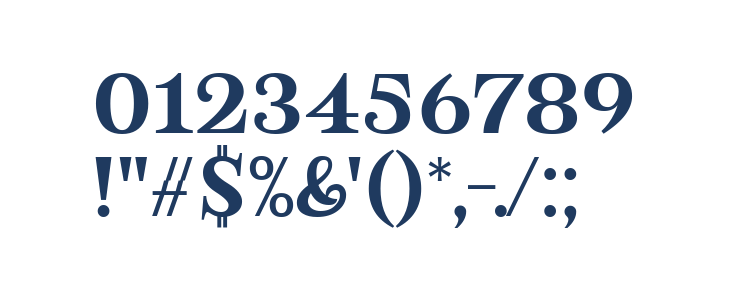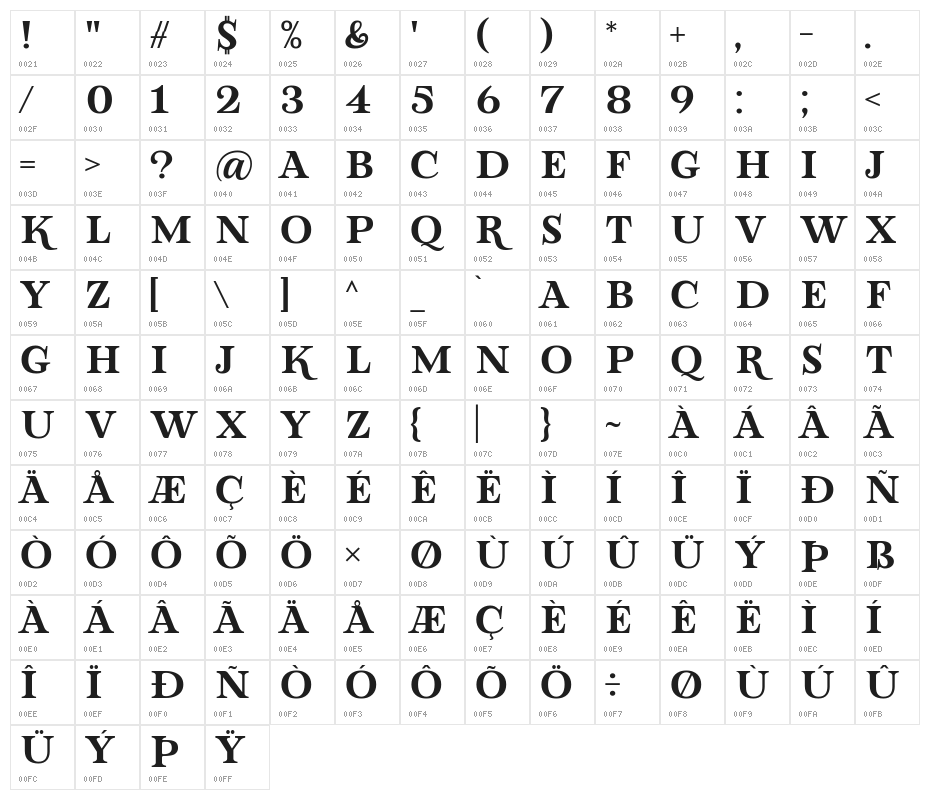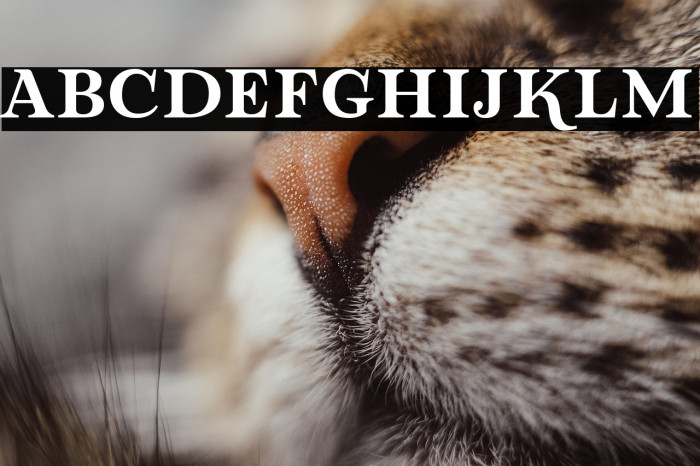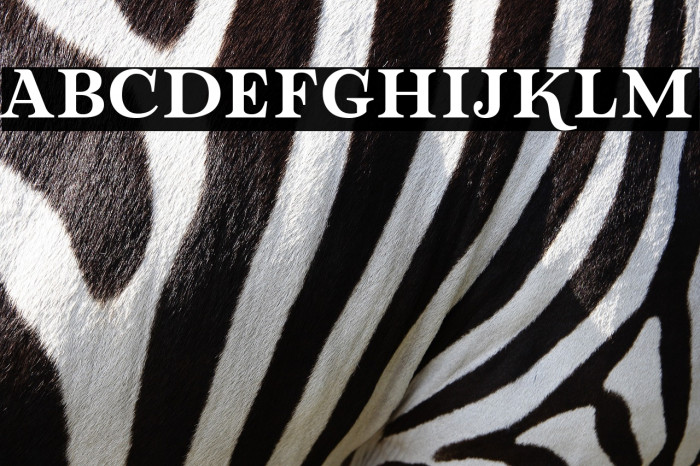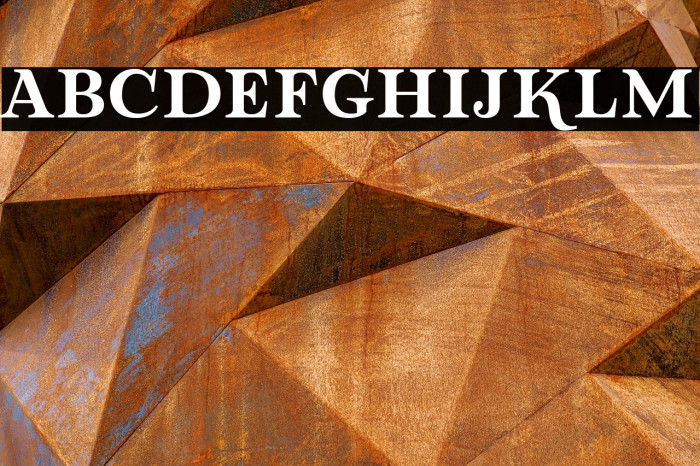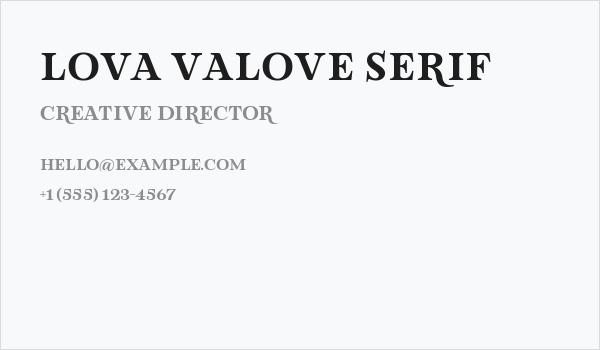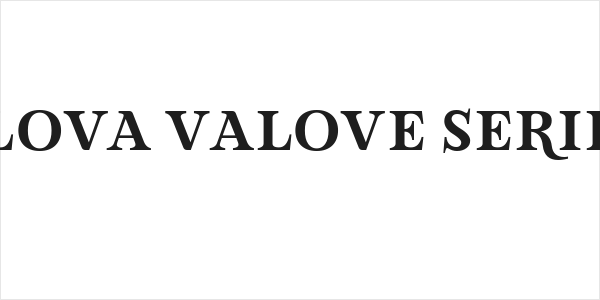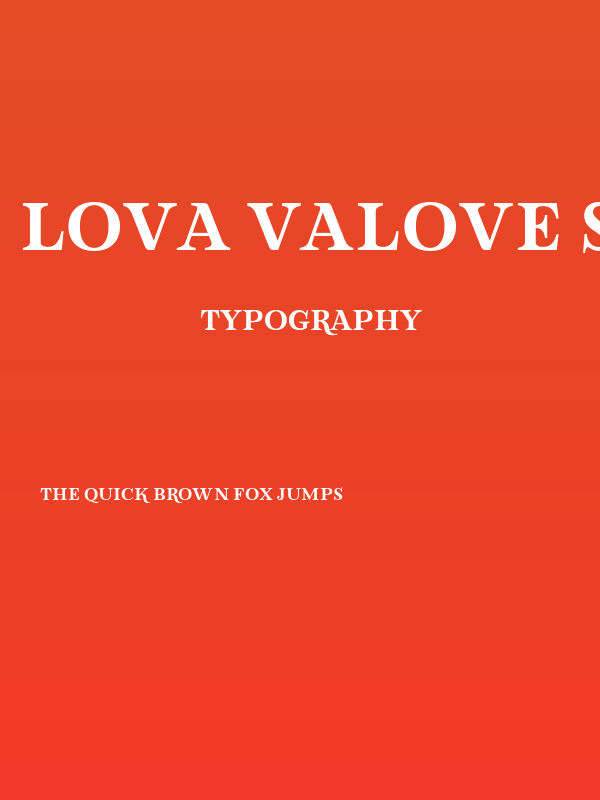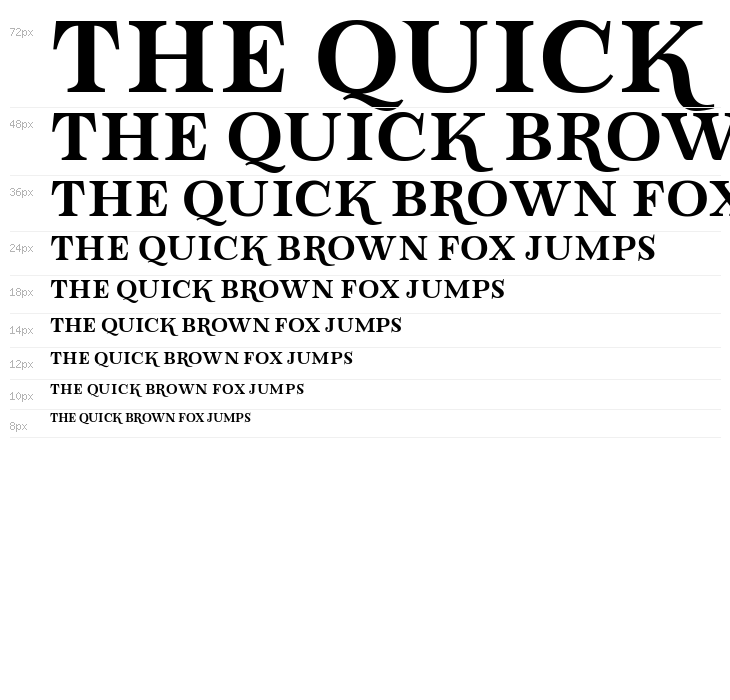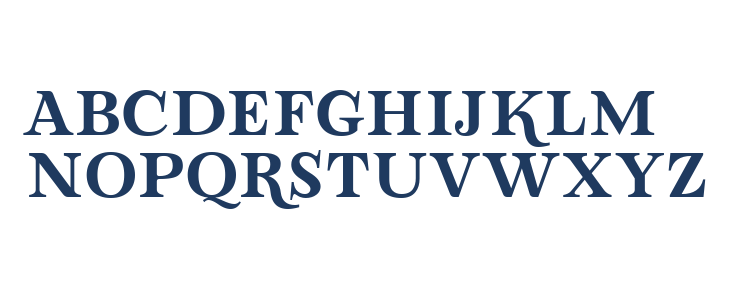
Lova Valove Serif Font
Lova Valove Serif Description
This serif typeface features a classic and elegant design with pronounced serifs and a balanced structure. The uppercase letters exhibit a traditional form with slight variations in stroke width, adding a touch of sophistication. The lowercase letters maintain a consistent style, ensuring readability while retaining the font's distinctive character. Numerals are bold and clear, making them suitable for both display and text settings. The special characters are well-integrated, complementing the overall aesthetic. This font is versatile, offering a timeless appeal suitable for various design applications.
Overall StyleClassic
Proposed ProjectsIdeal for book covers, editorial design, branding, and formal invitations.